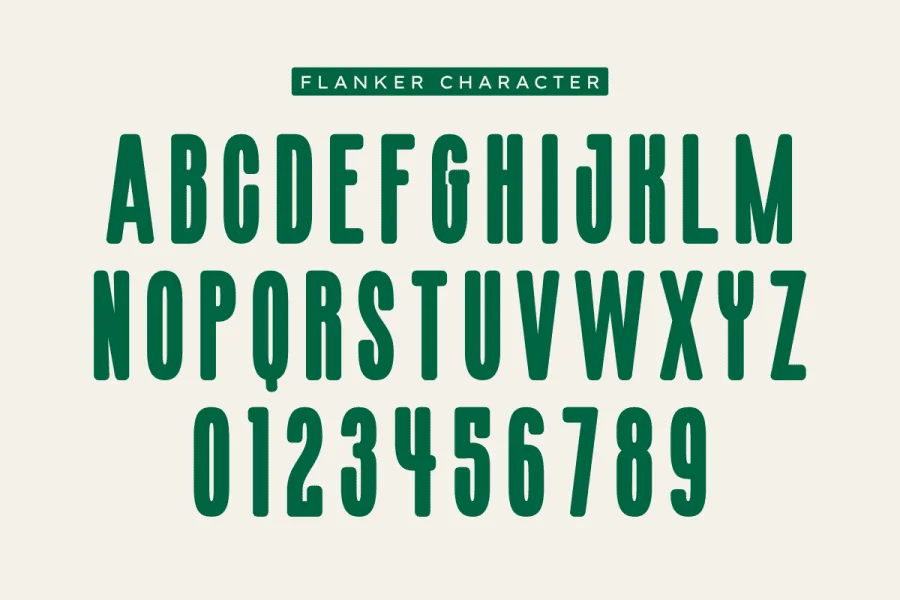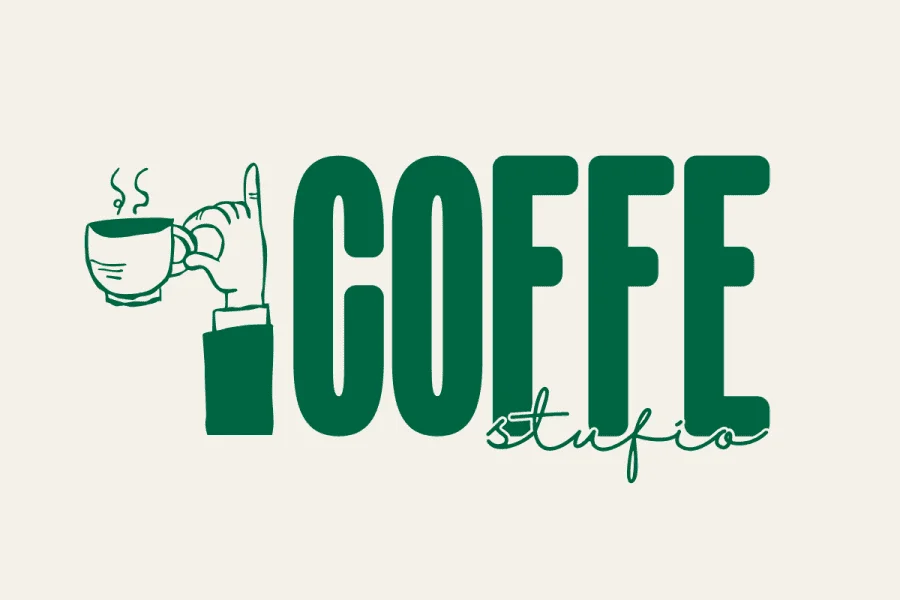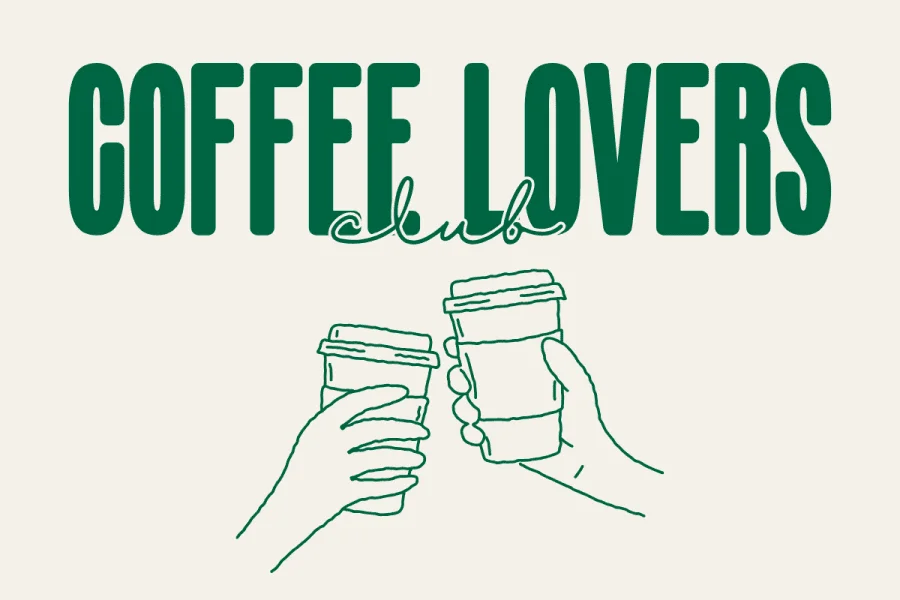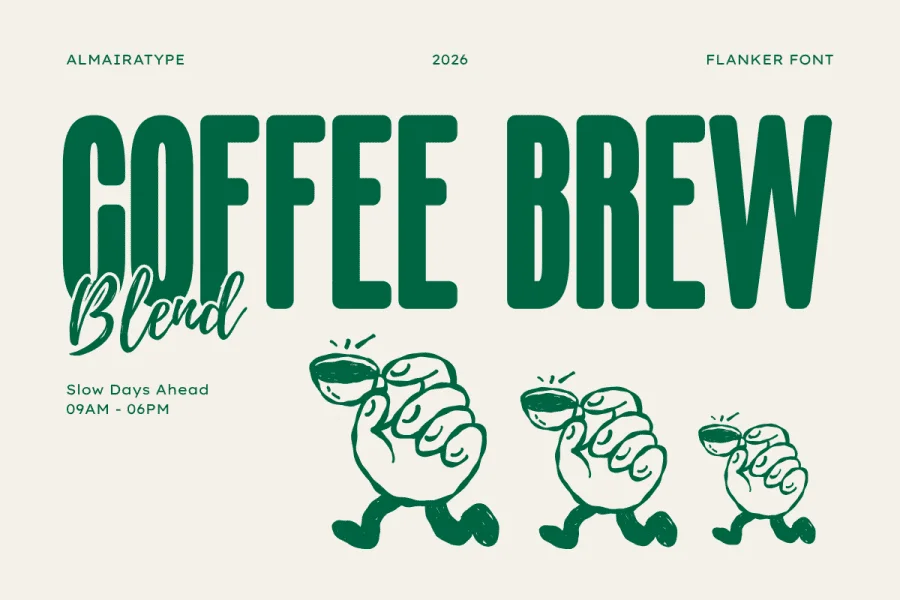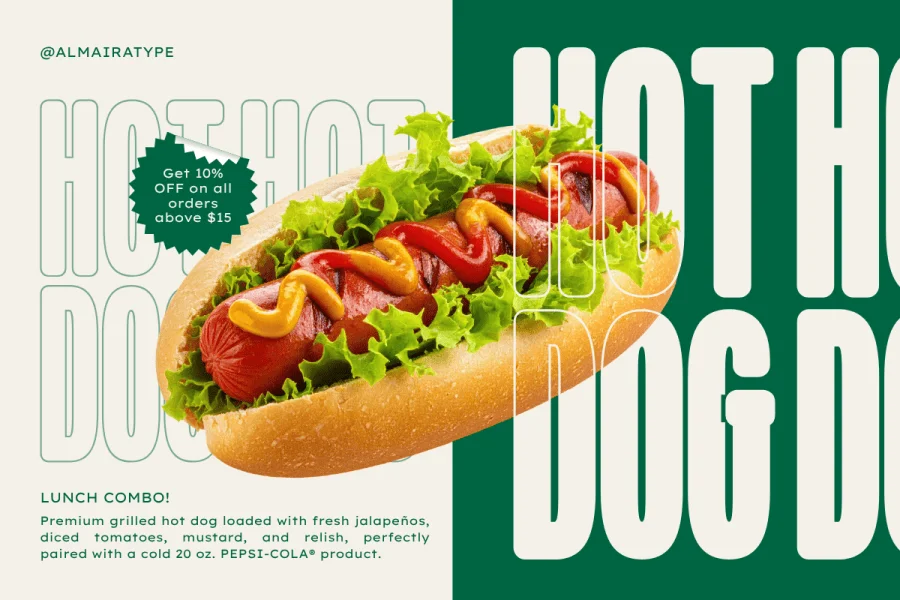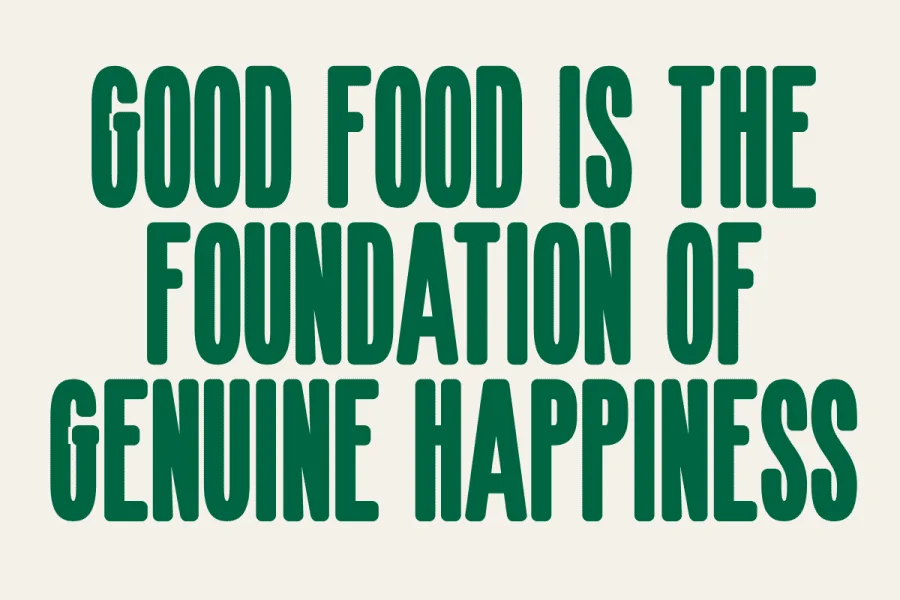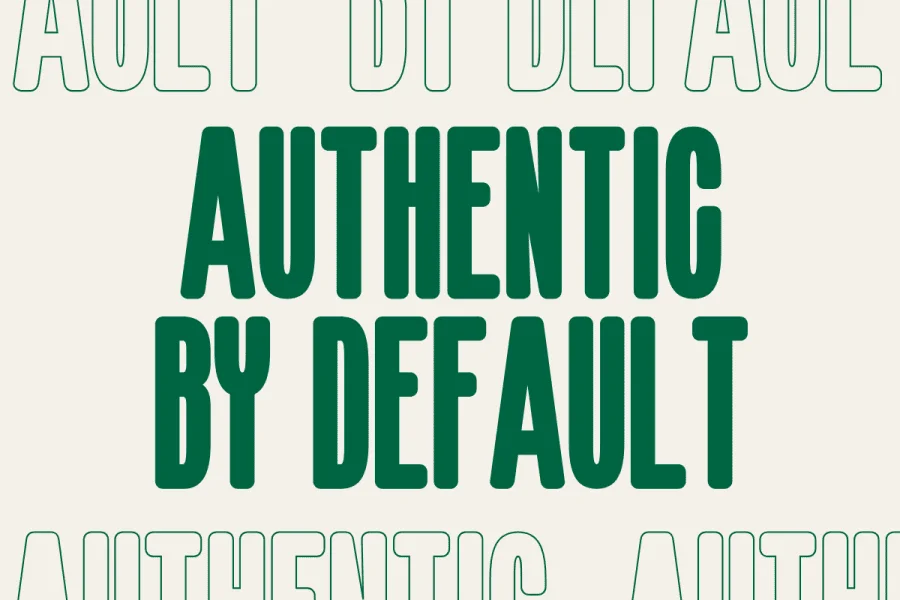
Flanker is a condensed sans-serif typeface that channels a distinct retro aesthetic through its tall, tightly packed proportions and softened, rounded terminals. Built with a low-contrast, near-monoline stroke weight, its characters exhibit a clean, uniform texture that feels both structured and approachable. The upright posture create a stable, rhythmic cadence, while the slightly softened corners take the edge off its narrow, architectural frame, giving it a warm, vintage-inspired personality.
This typeface is highly suited for prominent display use where space is at a premium, making it particularly effective for coffee shop branding, cafe menus, and food packaging layouts. Whether anchoring a bold coffee blend label, defining a fast-casual food truck menu, or lending a nostalgic presence to artisanal food products, its compact width and friendly, retro-modern construction make a memorable visual statement.